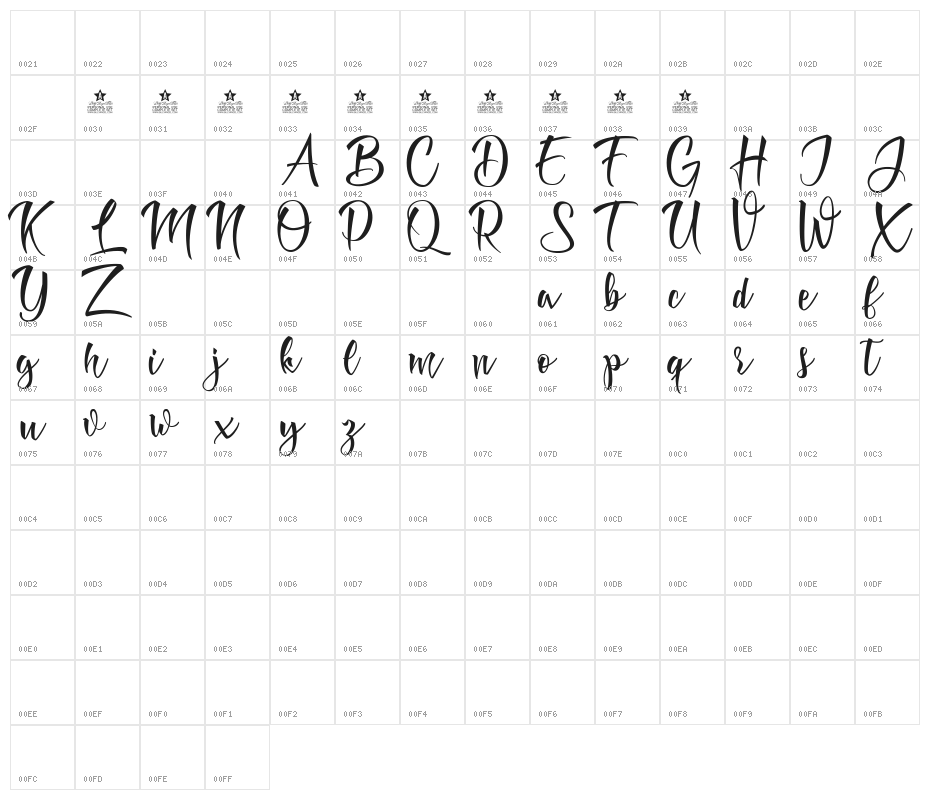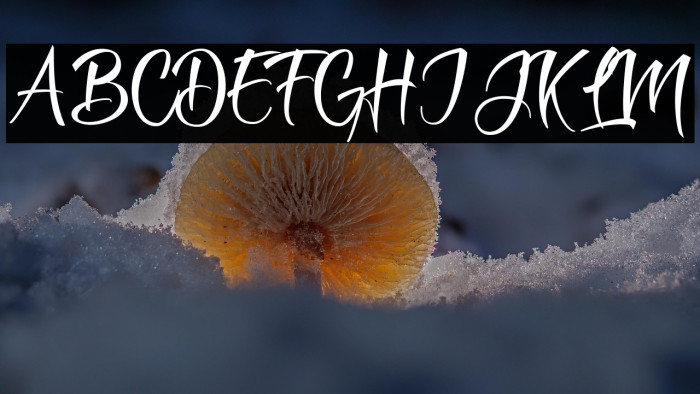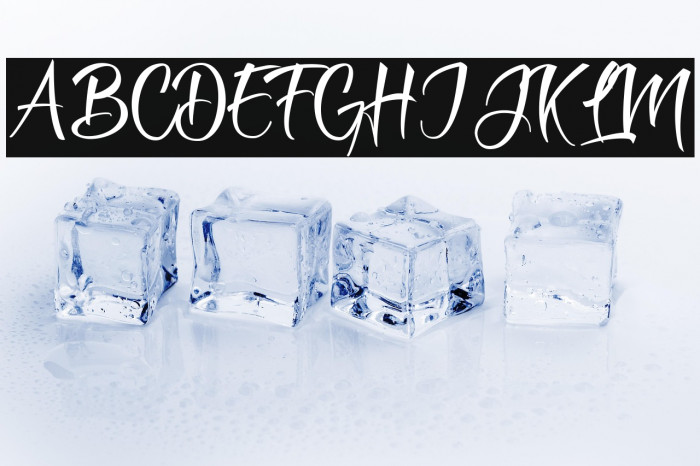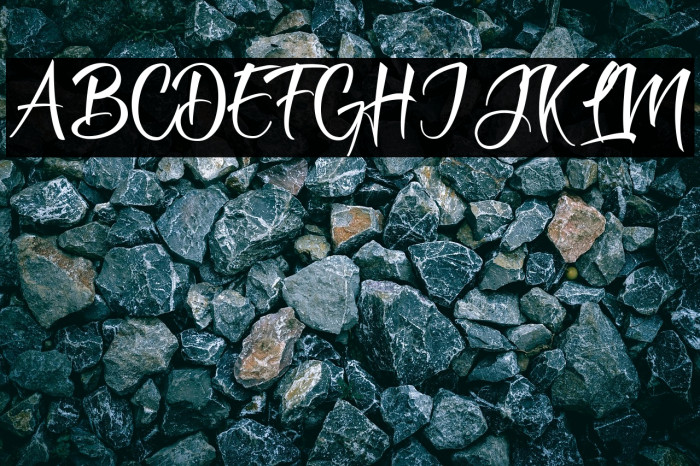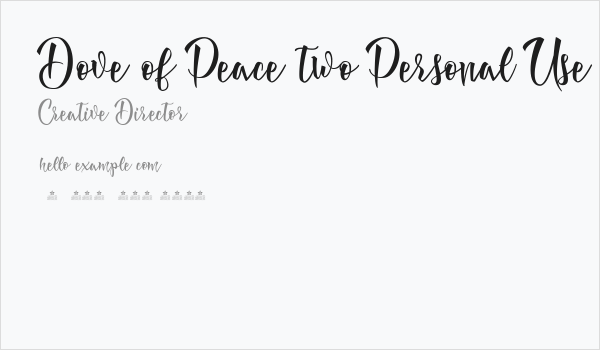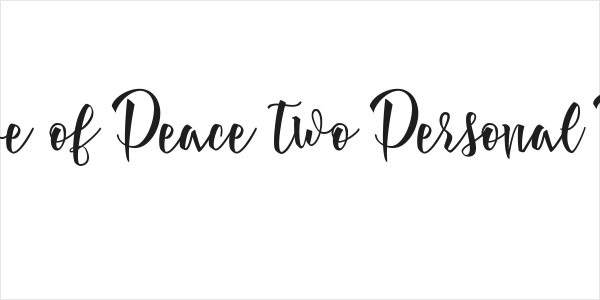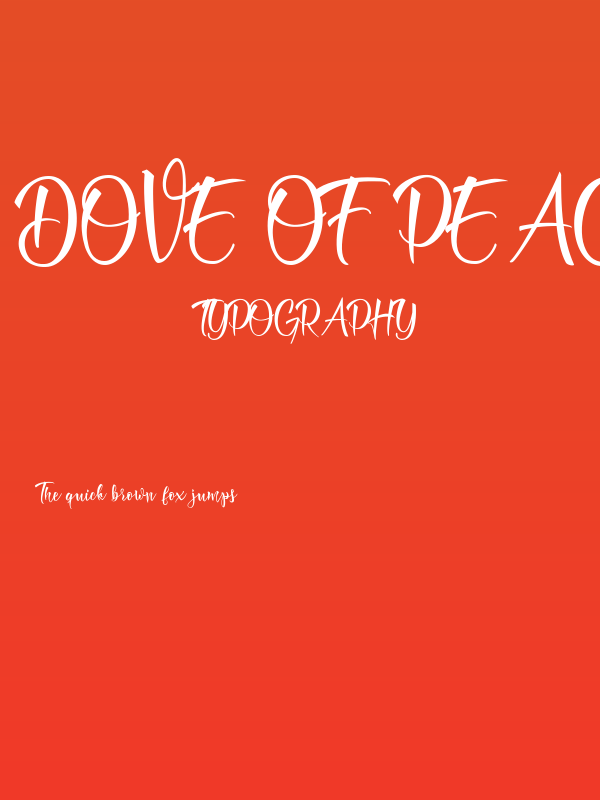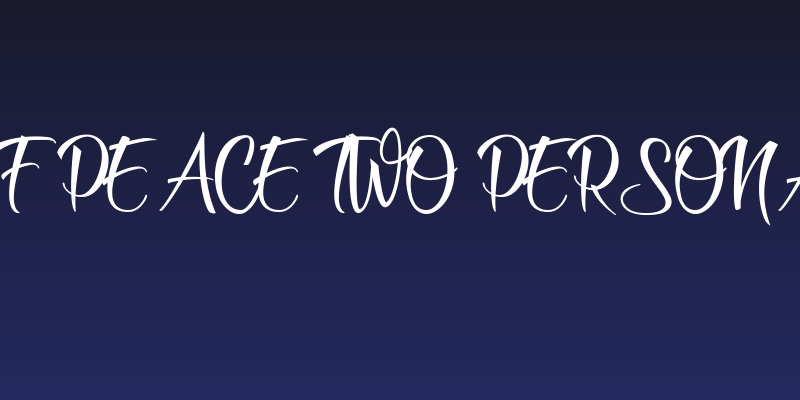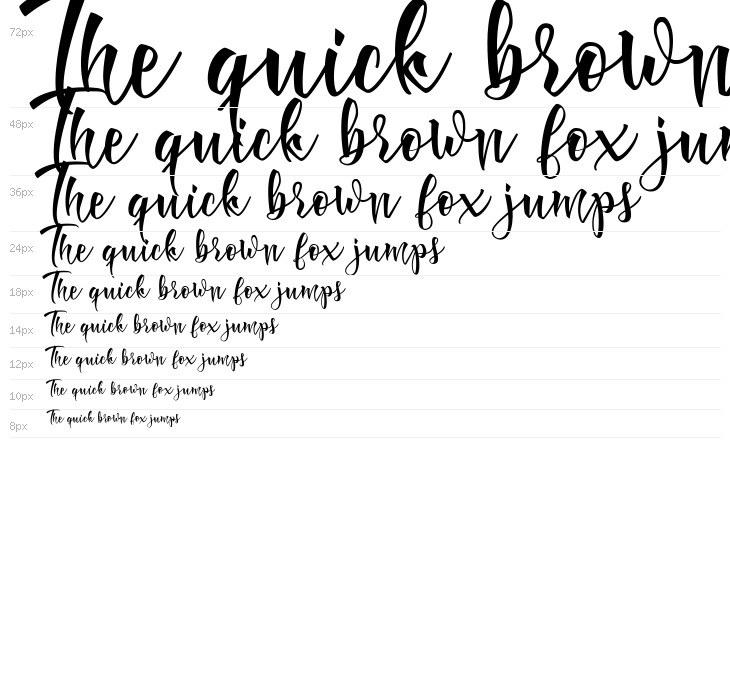
Dove of Peace two Personal Use Font
Dove of Peace two Personal Use Description
This font features a flowing, cursive style with a modern flair. The characters are elegantly crafted with sweeping curves and a sense of movement, giving it a dynamic and artistic appearance. The uppercase letters are bold and expressive, while the lowercase letters maintain a consistent fluidity. The font's design is reminiscent of calligraphy, with a touch of whimsy and sophistication. It is well-suited for creative projects that require a personal and artistic touch. The characters are closely spaced, enhancing the cohesive look of the text. Overall, this font exudes a sense of elegance and creativity, making it ideal for designs that aim to capture attention and convey a sense of style.
Use CaseLogos, Headlines, Artistic projects
Proposed ProjectsIdeal for wedding invitations, greeting cards, branding, and artistic projects.